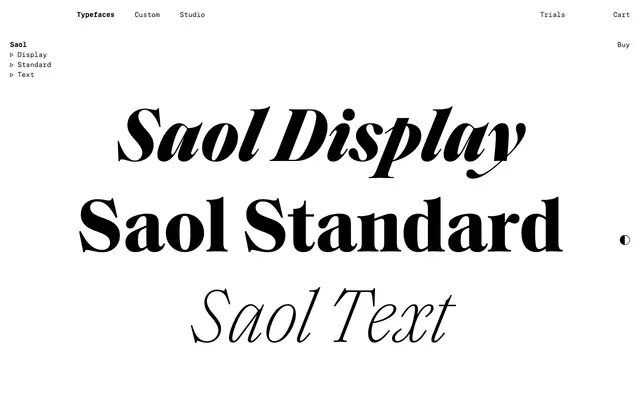
Saol
Saol specimen from Schick Toikka
A Victorian-old-style serif system across Display, Standard and Text optical sizes, with flamboyant swash italic and an additional Mono cut.
Saol interprets late-1800s American Victorian serifs (Ronaldson 1884, Caxton Old Style 1889, West Old Style 1892) for present-day use, keeping the eccentric spirit of its sources. Diagonal strokes cross conventional boundaries (A, M, W, k, y), shoulders are unusually taut (h, n, u) and razor-edge details abound (E, G, R, T, t). The italic is particularly flamboyant, looping and undulating at a fairly deep slant, narrower than the roman but comparable in colour for harmonious mixing within a line. Borrowing wisdom from metal type's size-specific reality, Saol comes in three optical sizes: Display has delicate hairlines and maximum contrast, Standard is intended for medium use, and Text is optimised for smaller sizes with modest contrast. A Monospaced style adds another option for curious typography.
Schick Toikka cite three American Victorian serifs as Saol's reference points: Ronaldson (MacKellar, Smiths & Jordan, 1884), Caxton Old Style (Marder, Luse & Co, 1889) and West Old Style (Barnhart Brothers & Spindler, 1892), each with old-style structure but exaggerated terminals, thin hairlines and truncated descenders.